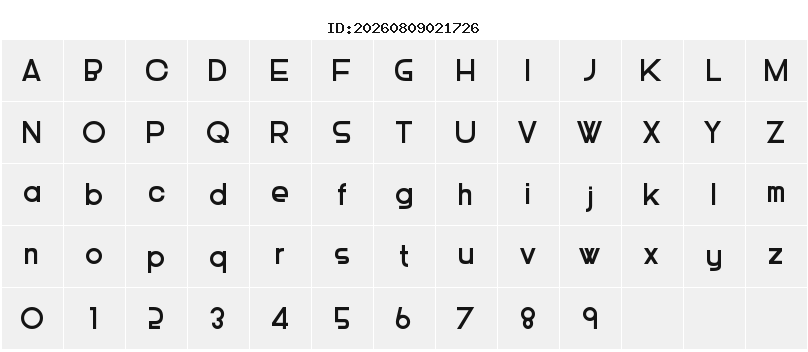
Piescese Preview
• Font Name: Piescese
• Full Font Name: Piescese
• Version: Version 1.00 July 18, 2013, initial release
About Piescese.otf
Piescese.otf is a modern, elegant sans-serif font designed for ultimate readability and visual harmony. Perfect for branding, headlines, web design, and print materials.